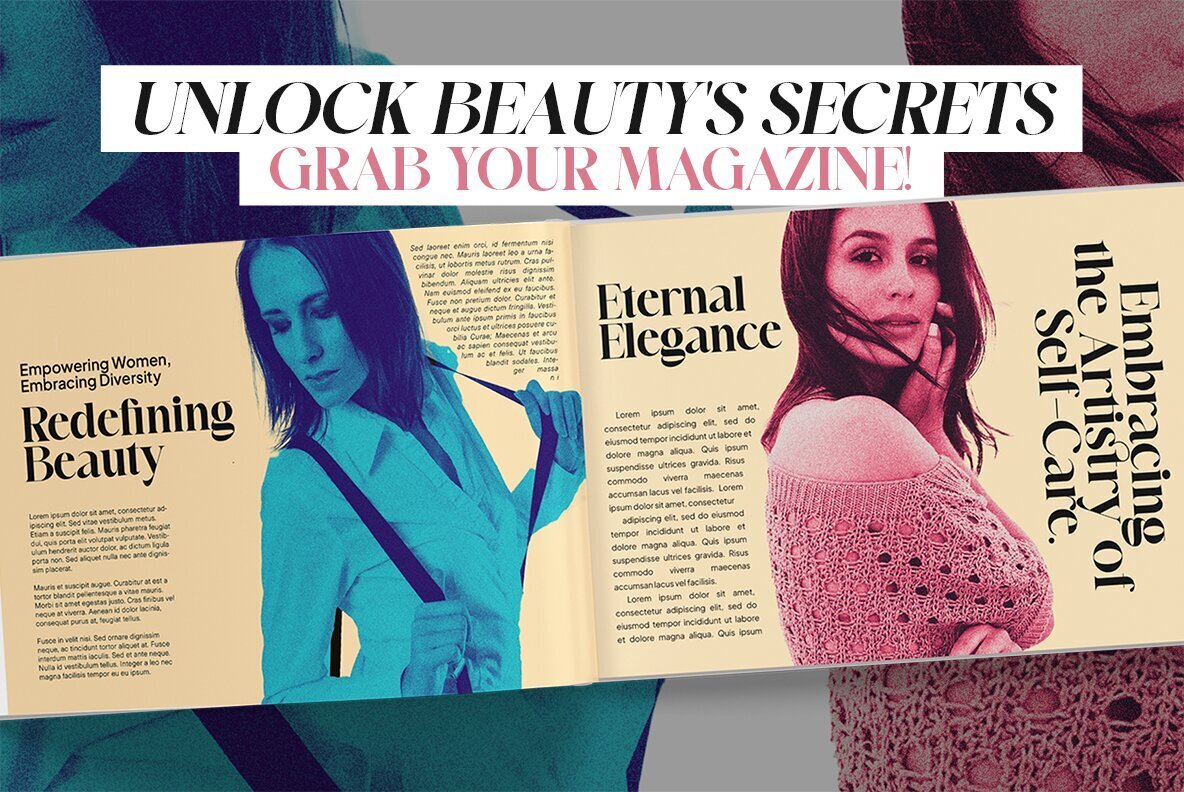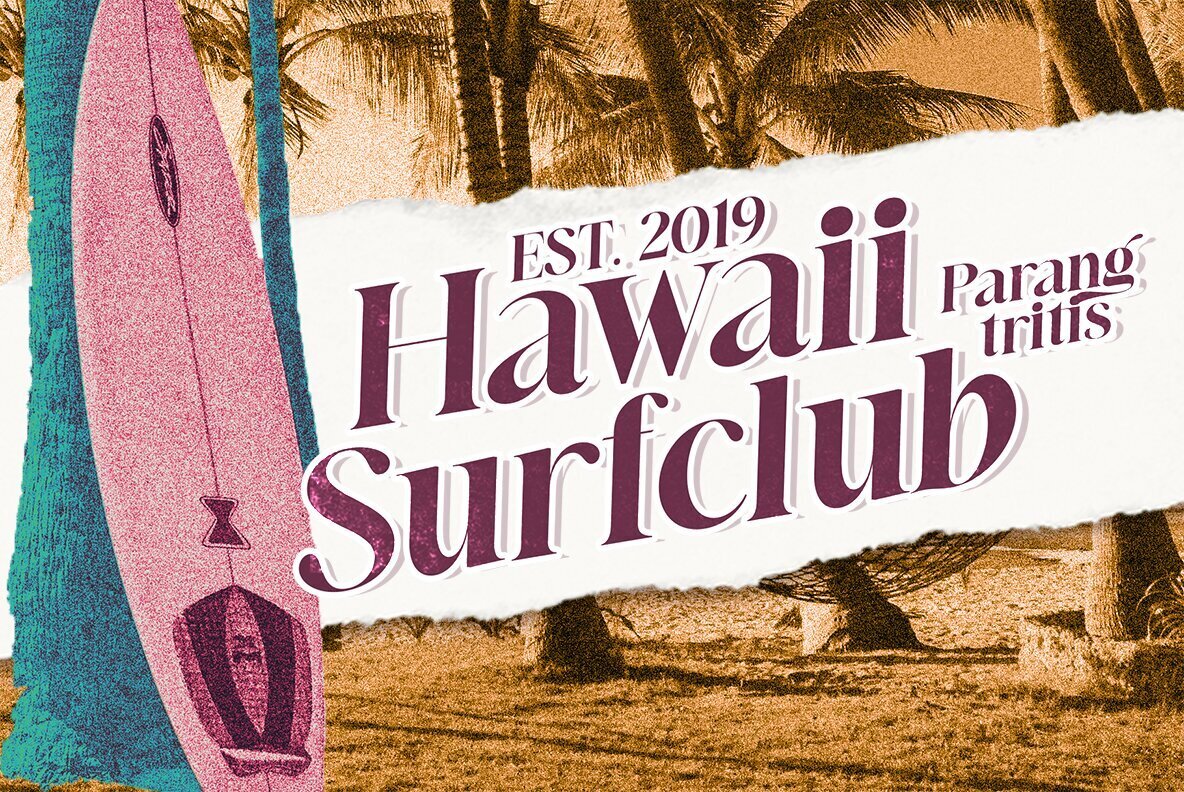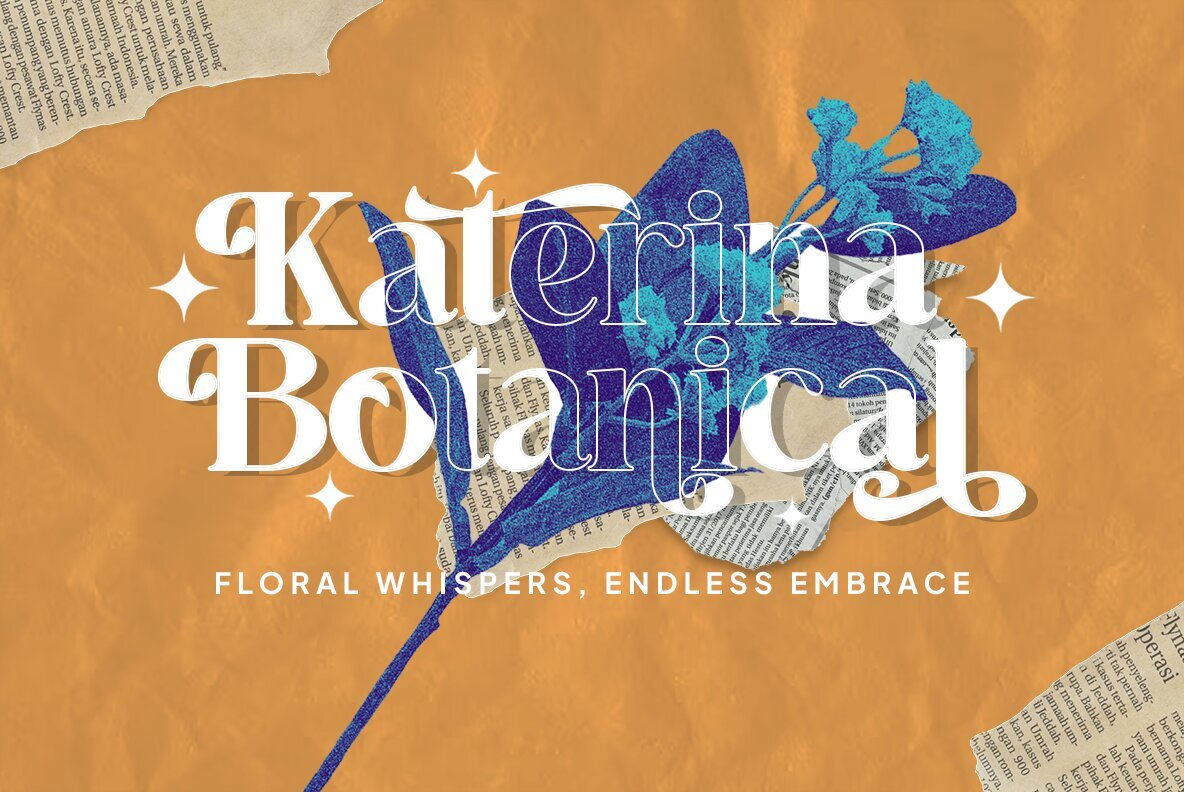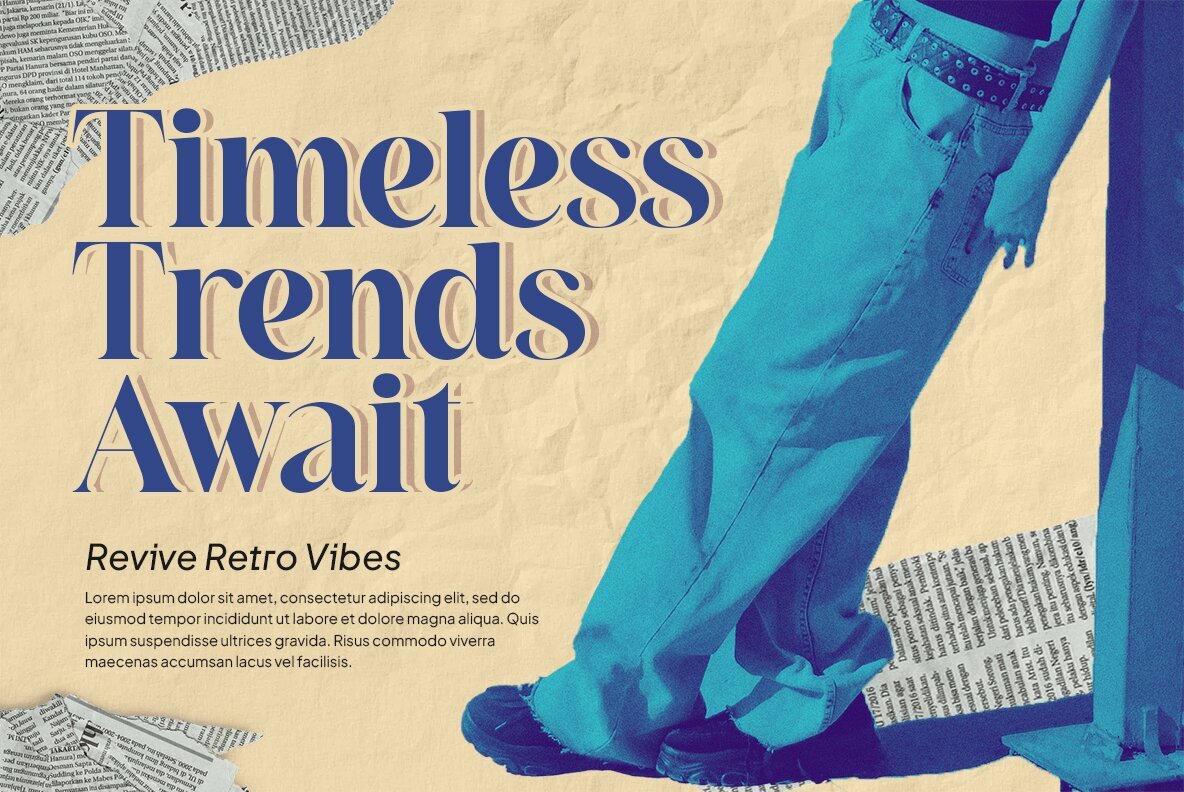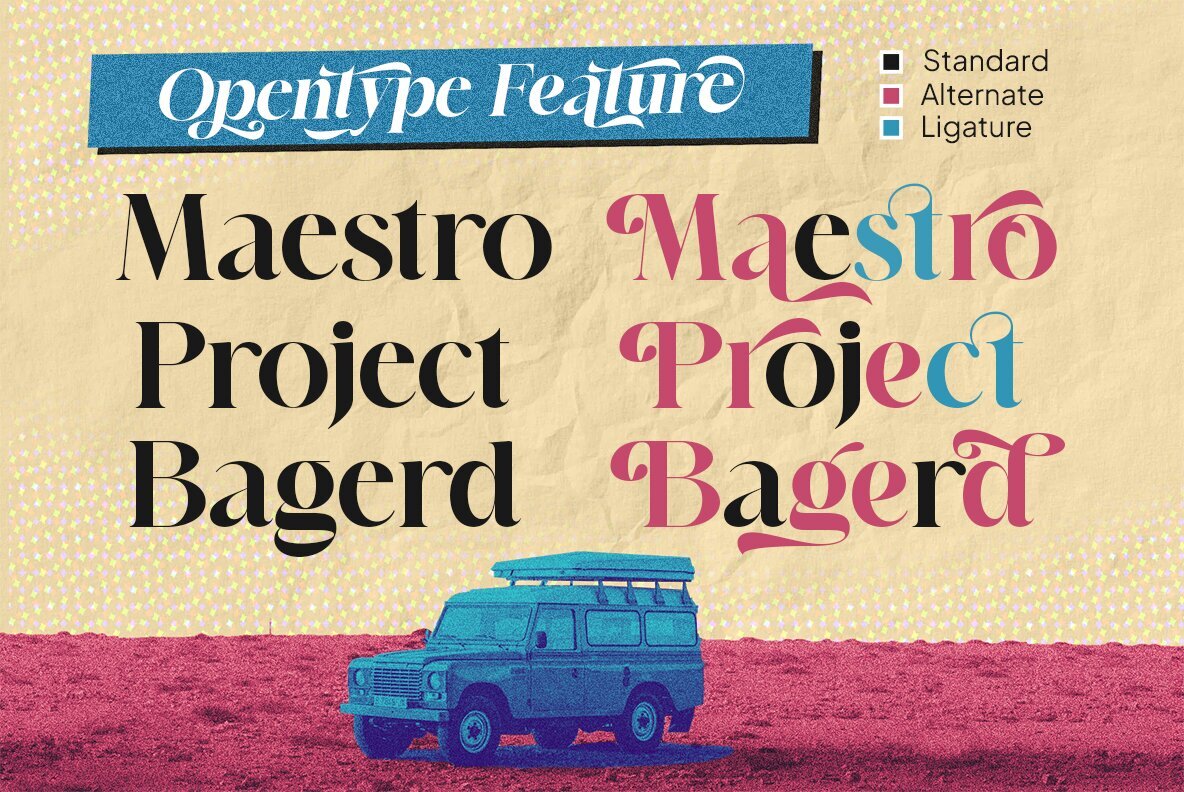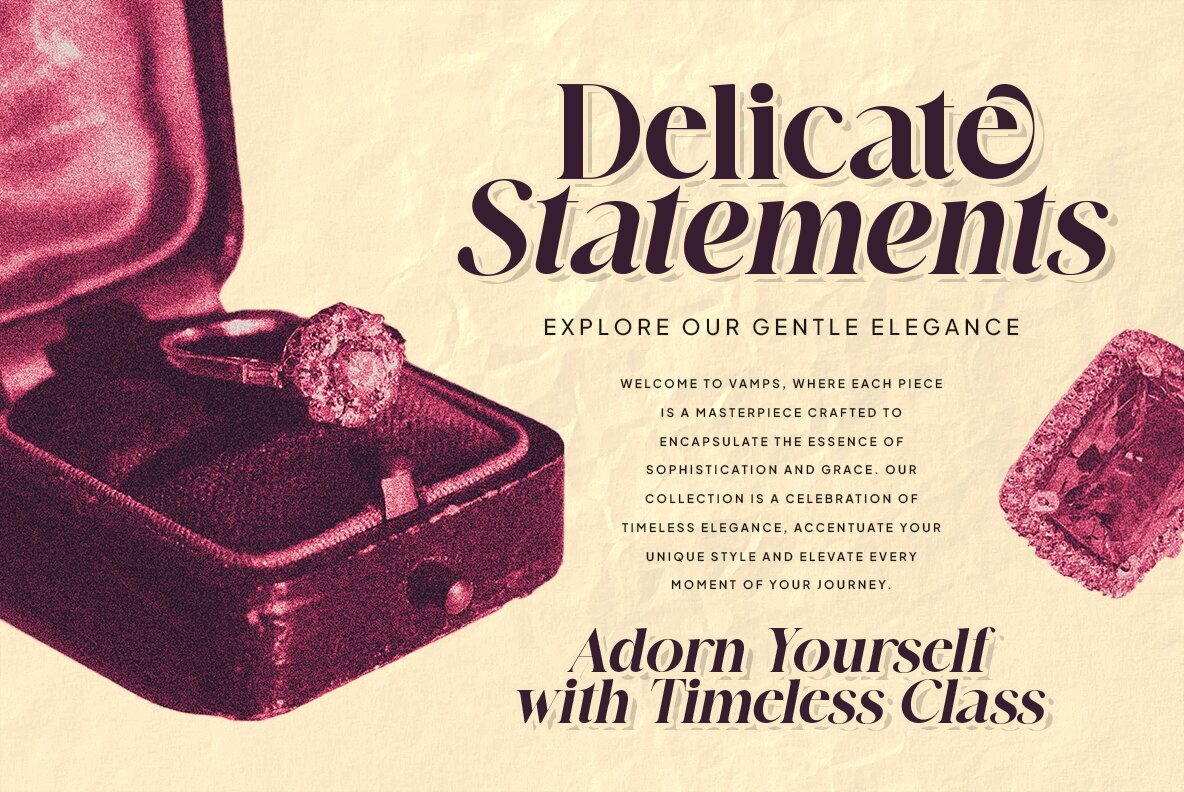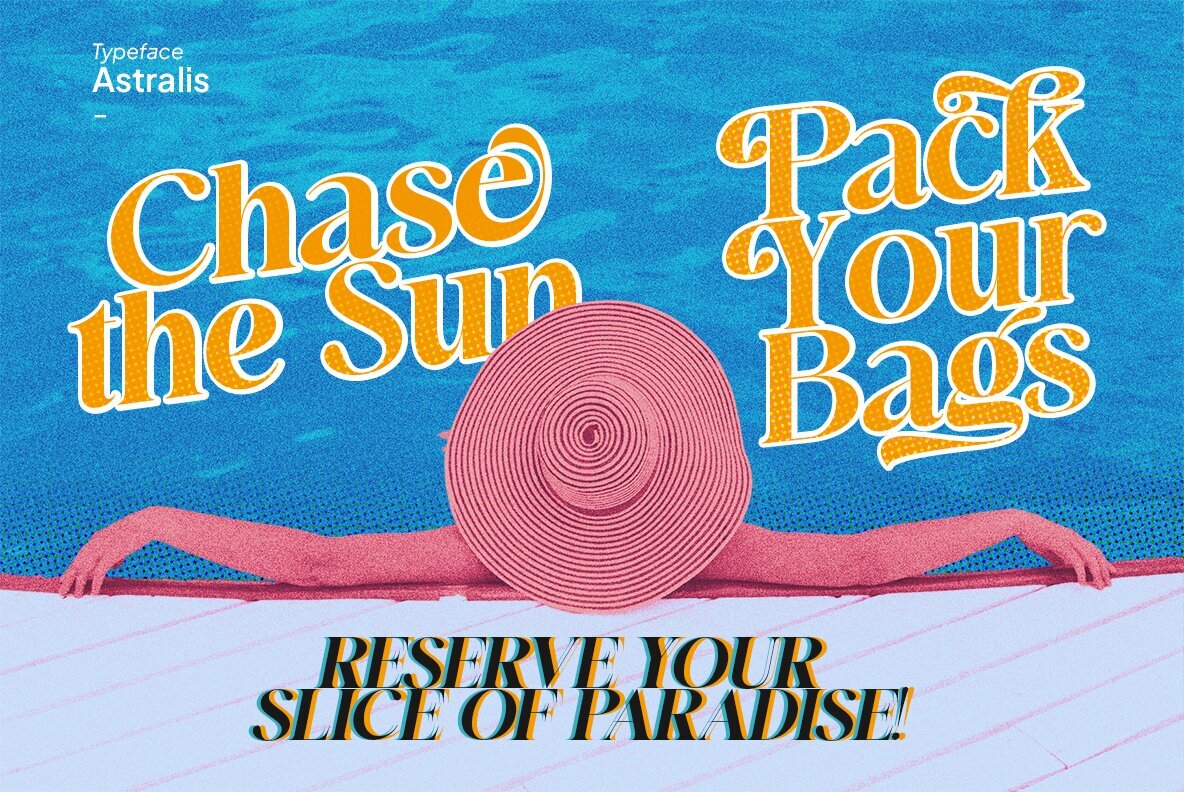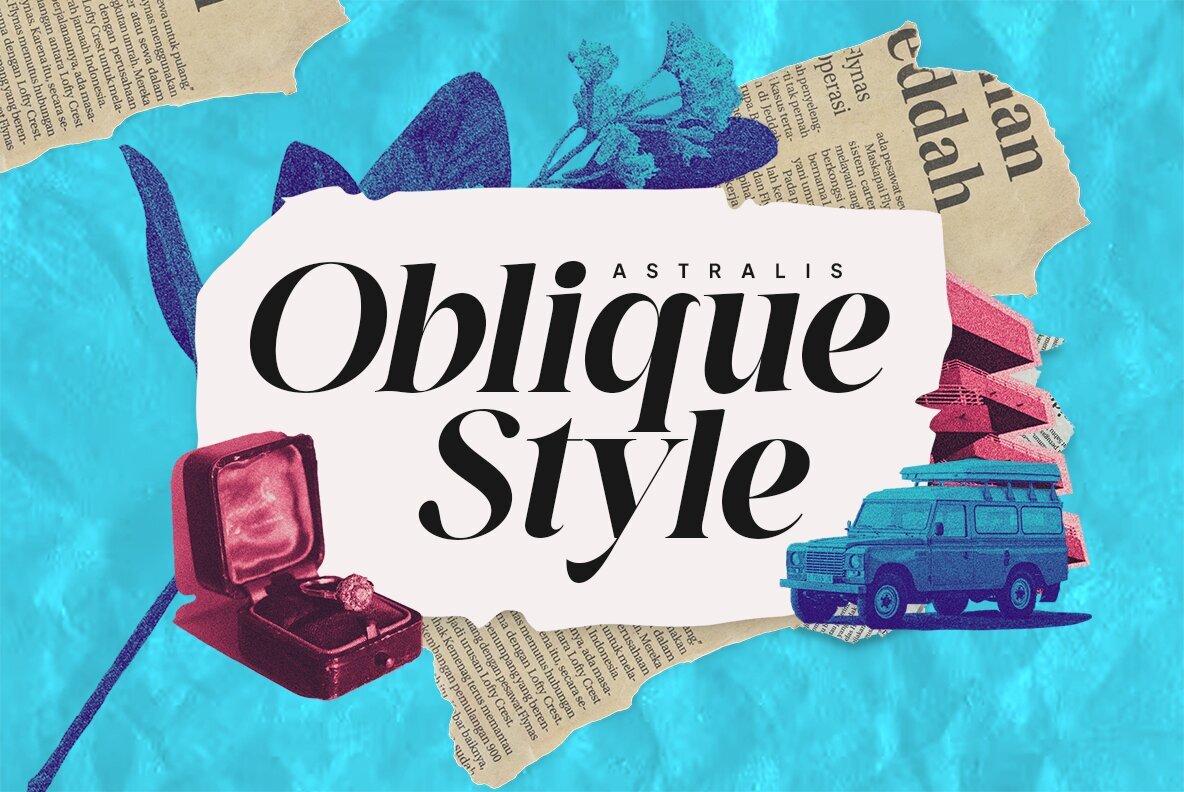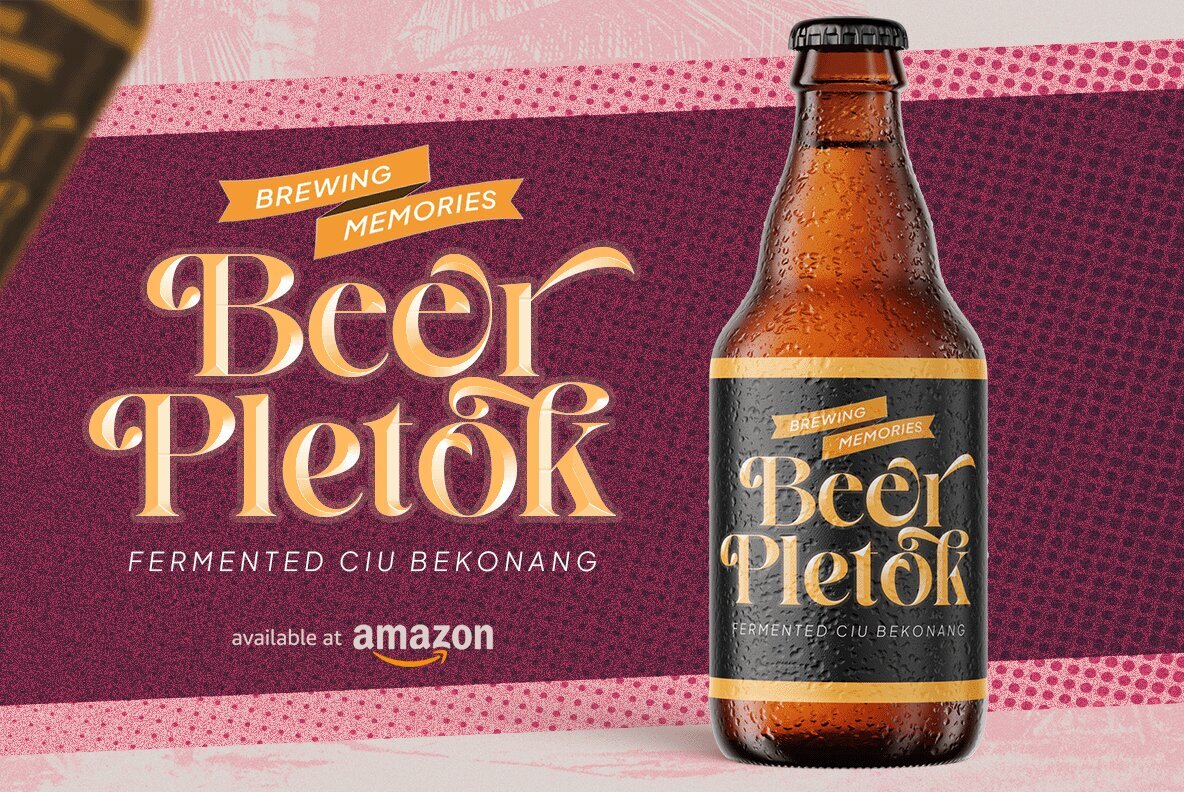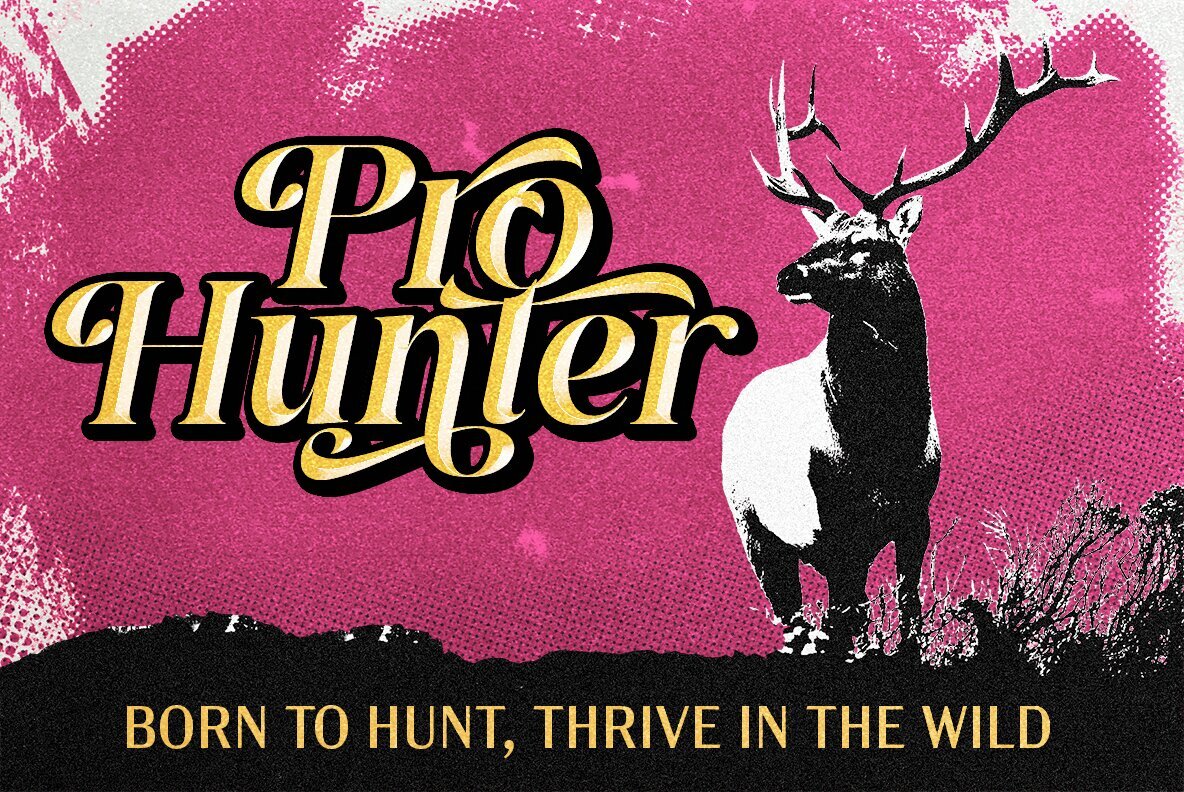
Astralis Font
Introducing "Astralis Retro Display Font" – Relive the Nostalgia of the Past in Typography! Take a trip back in time with "Astralis," a vibrant retro display font designed to infuse your designs with the nostalgic charm of yesteryears. Key Features: Astralis is perfect for branding projects, logo, wedding designs, social media posts, advertisements, product packaging, product designs, label, photography, watermark, invitation, stationery and any projects that need handwriting taste.